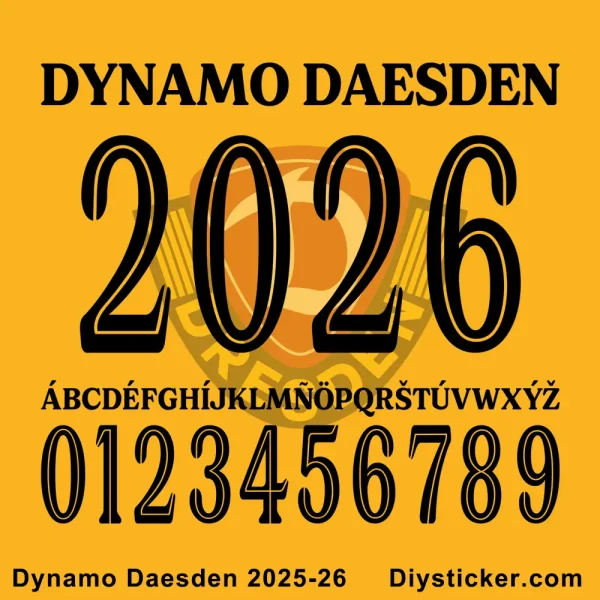
Dynamo Dresden 2025-26 Font Download
Perfect for creating logos, posters, merchandise, fan art, social media graphics, and more. Capture the spirit of Dynamo Dresden with this clean, bold, and versatile typeface.